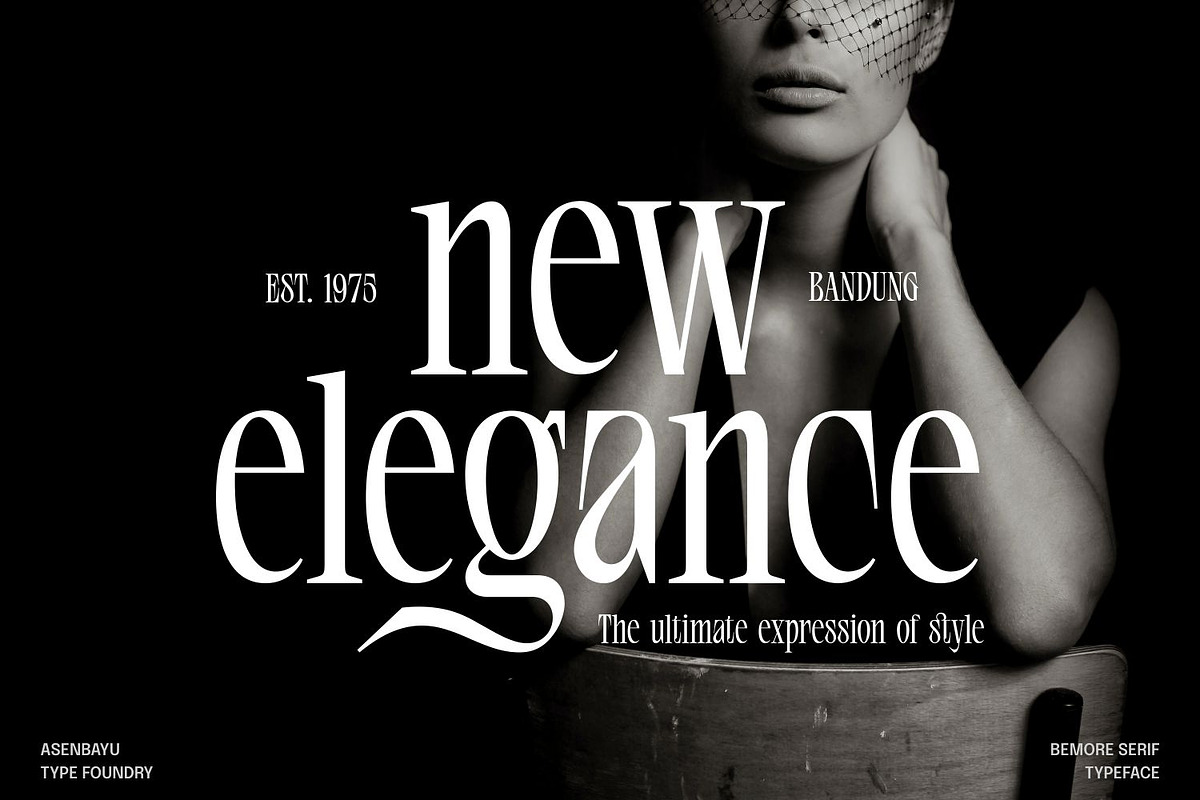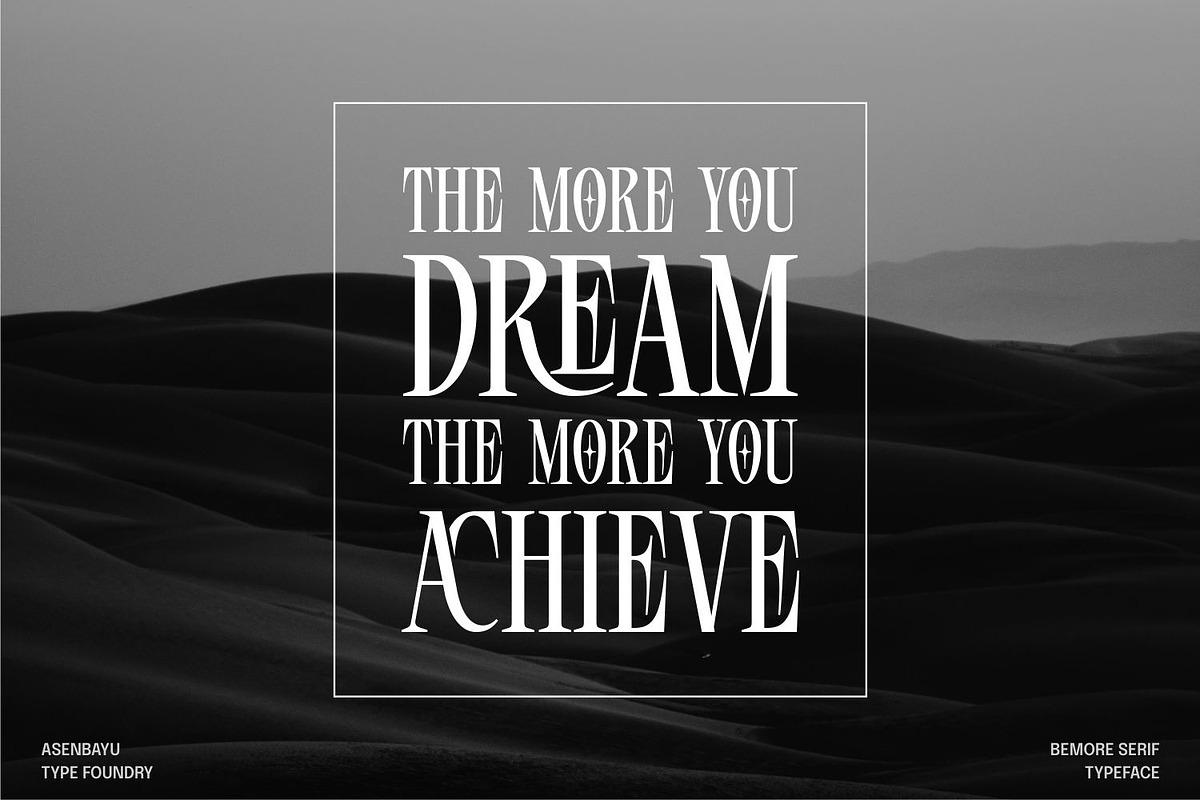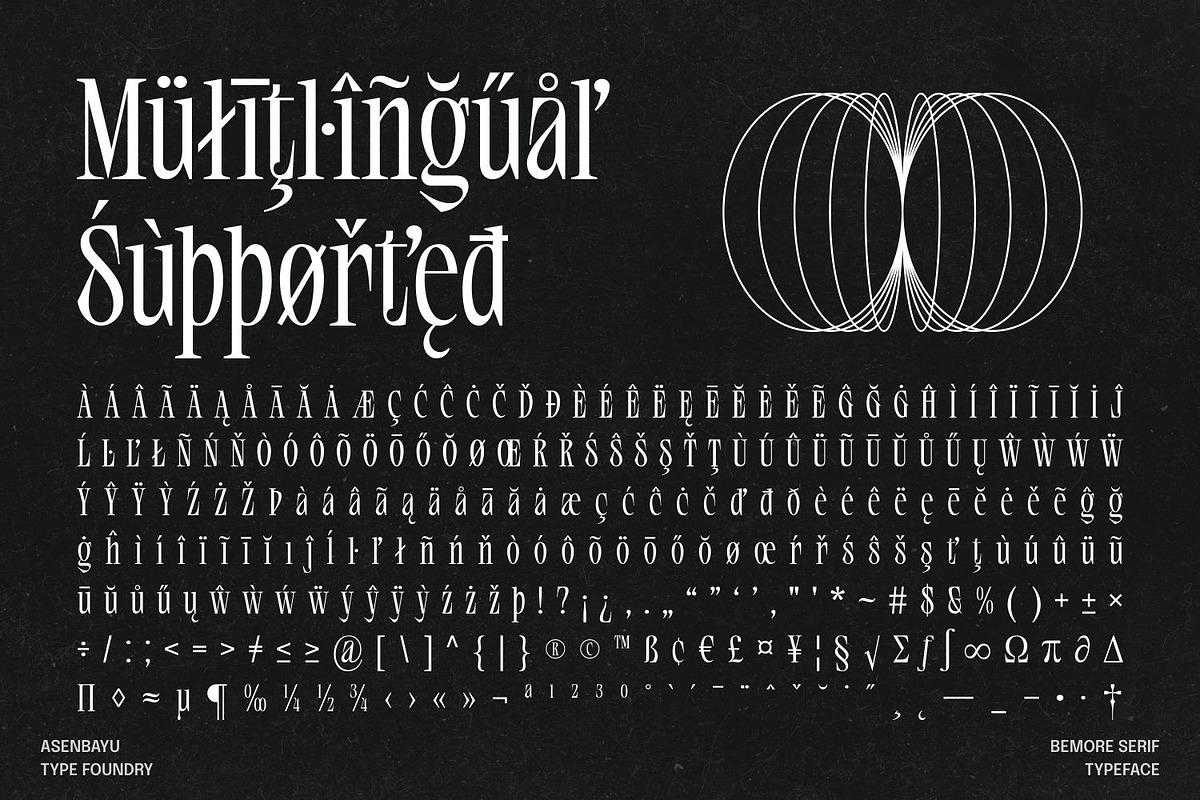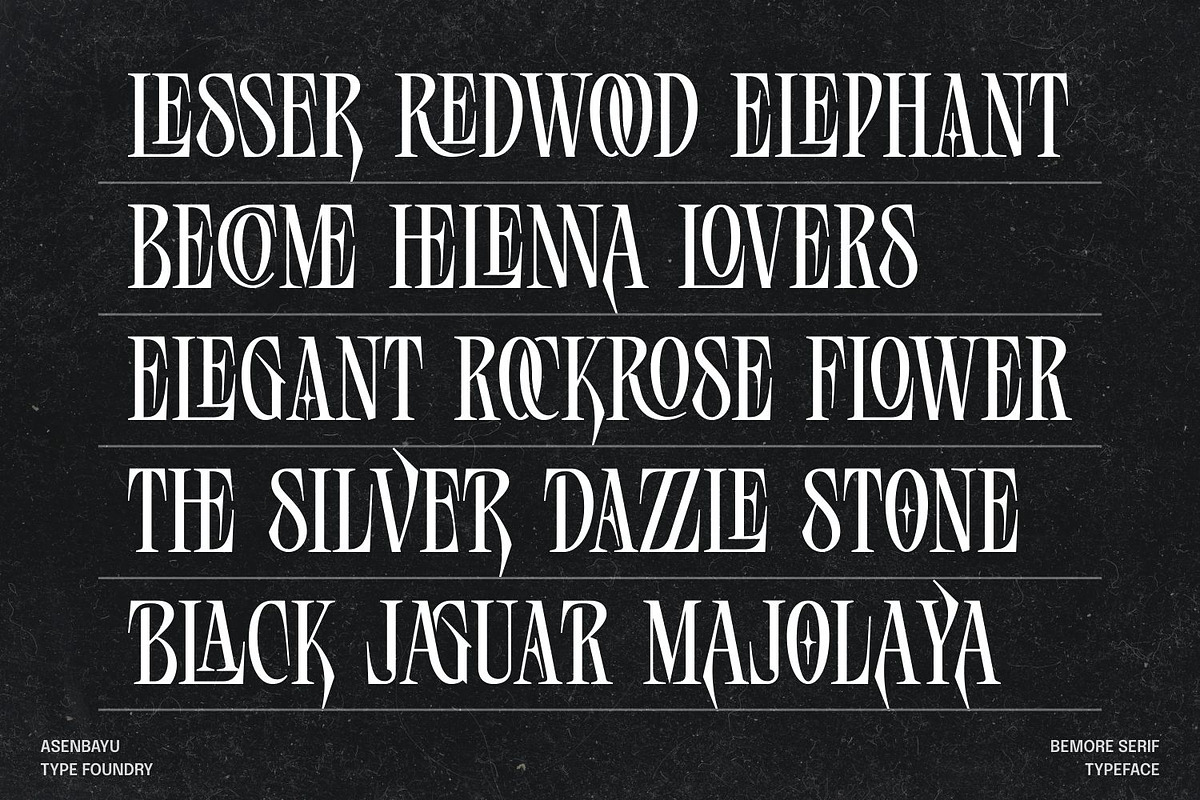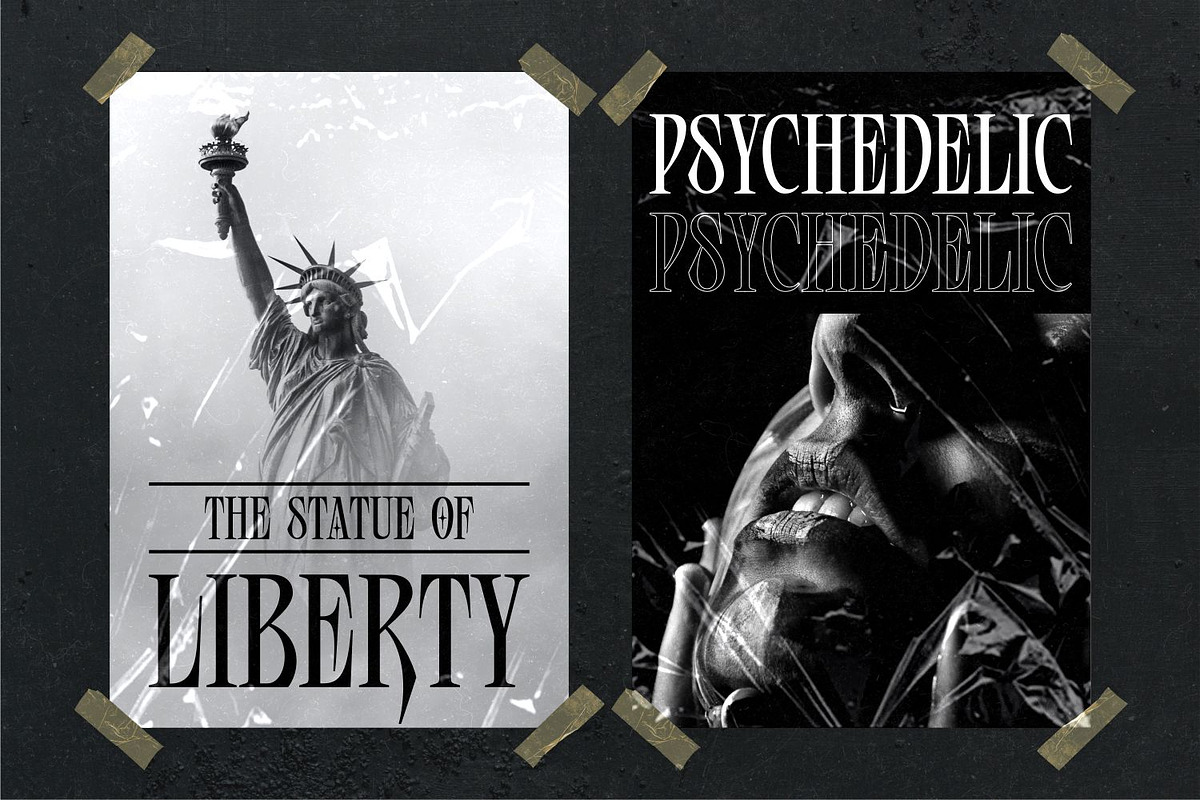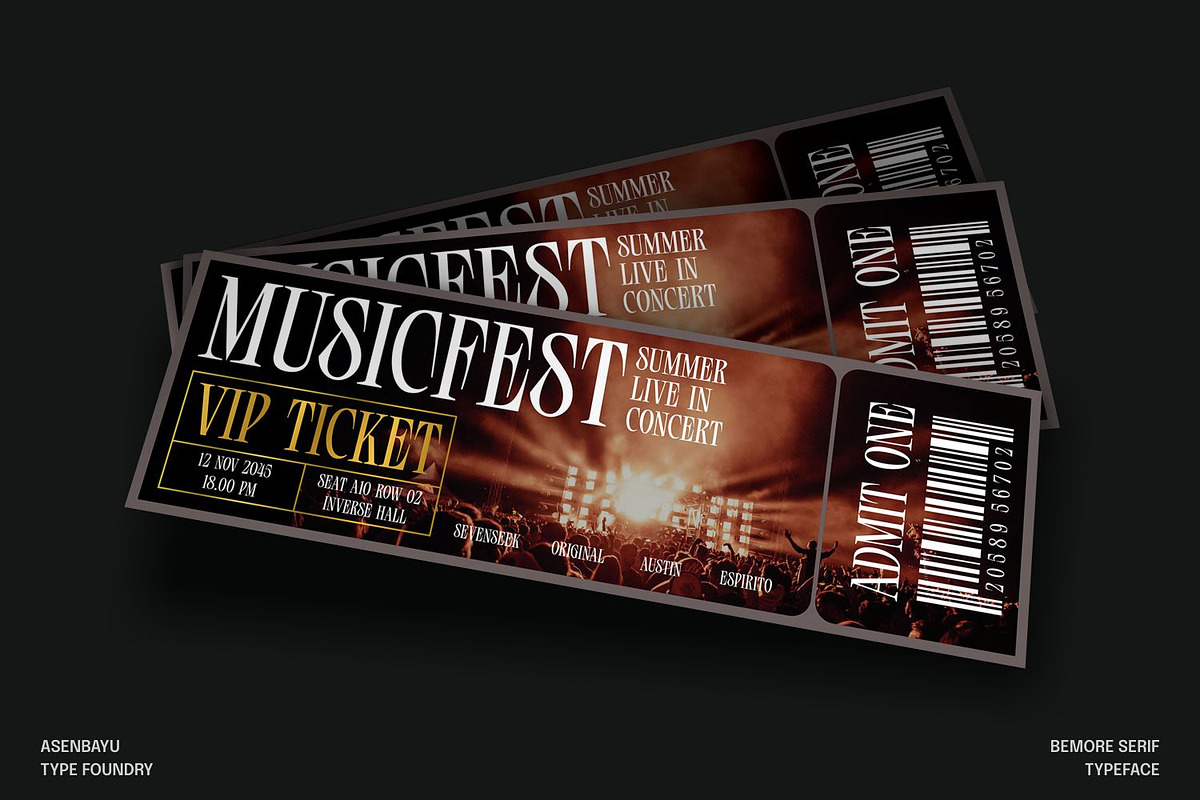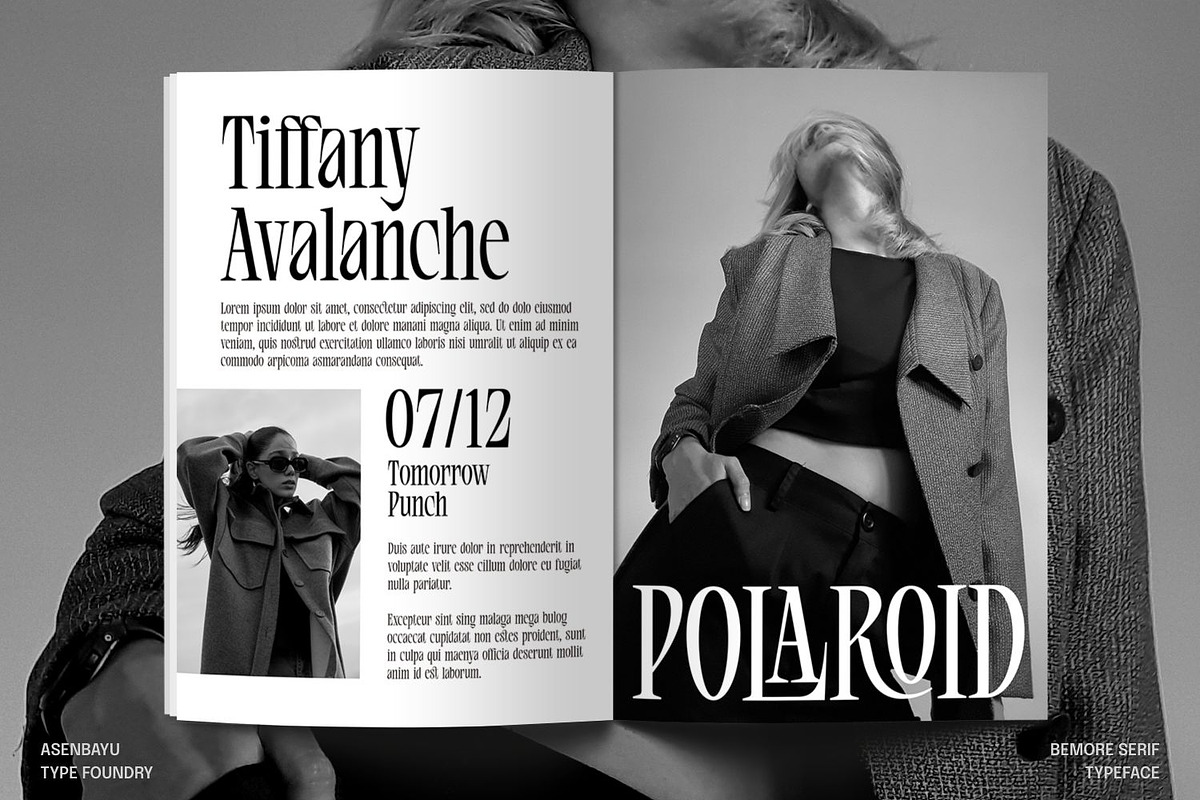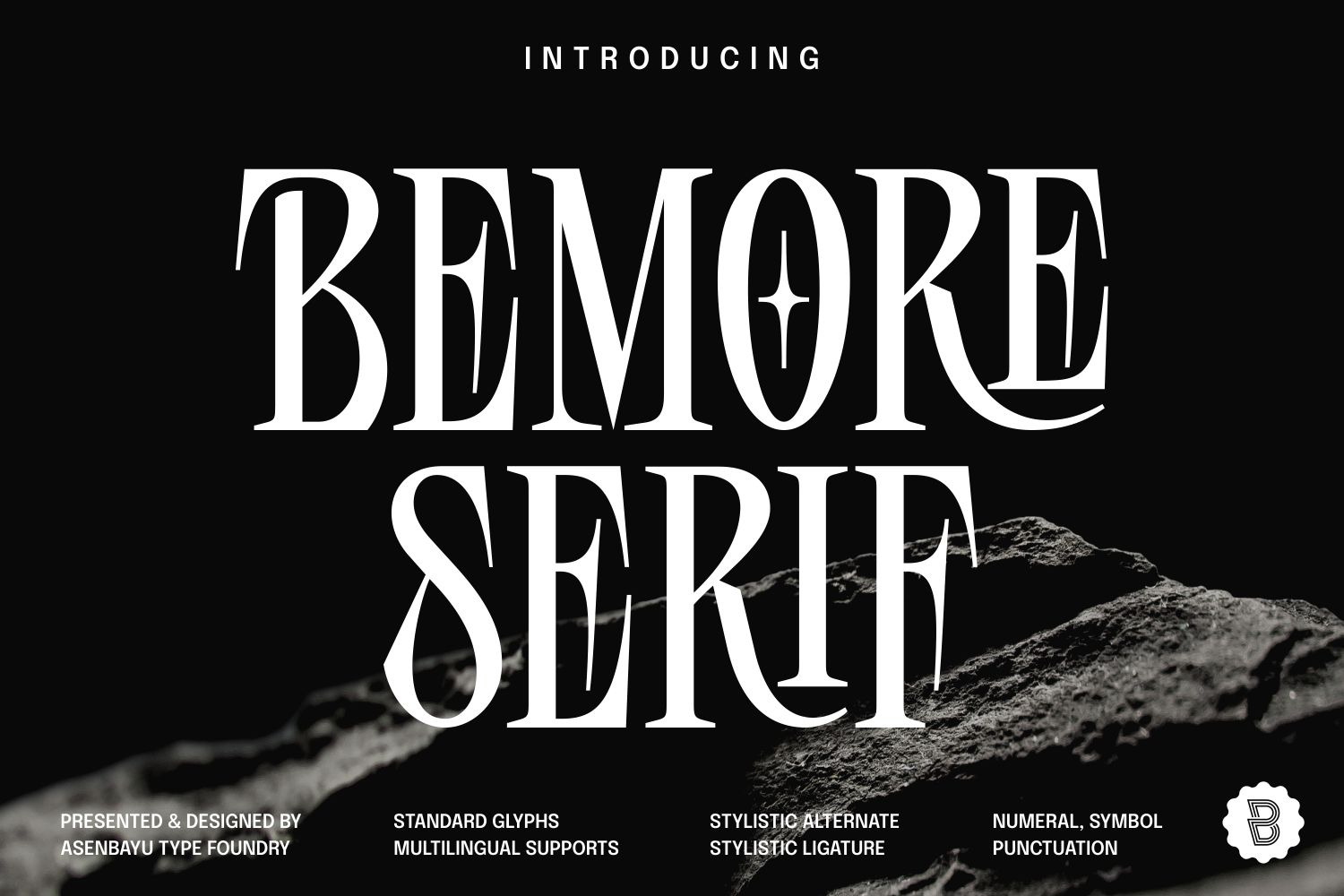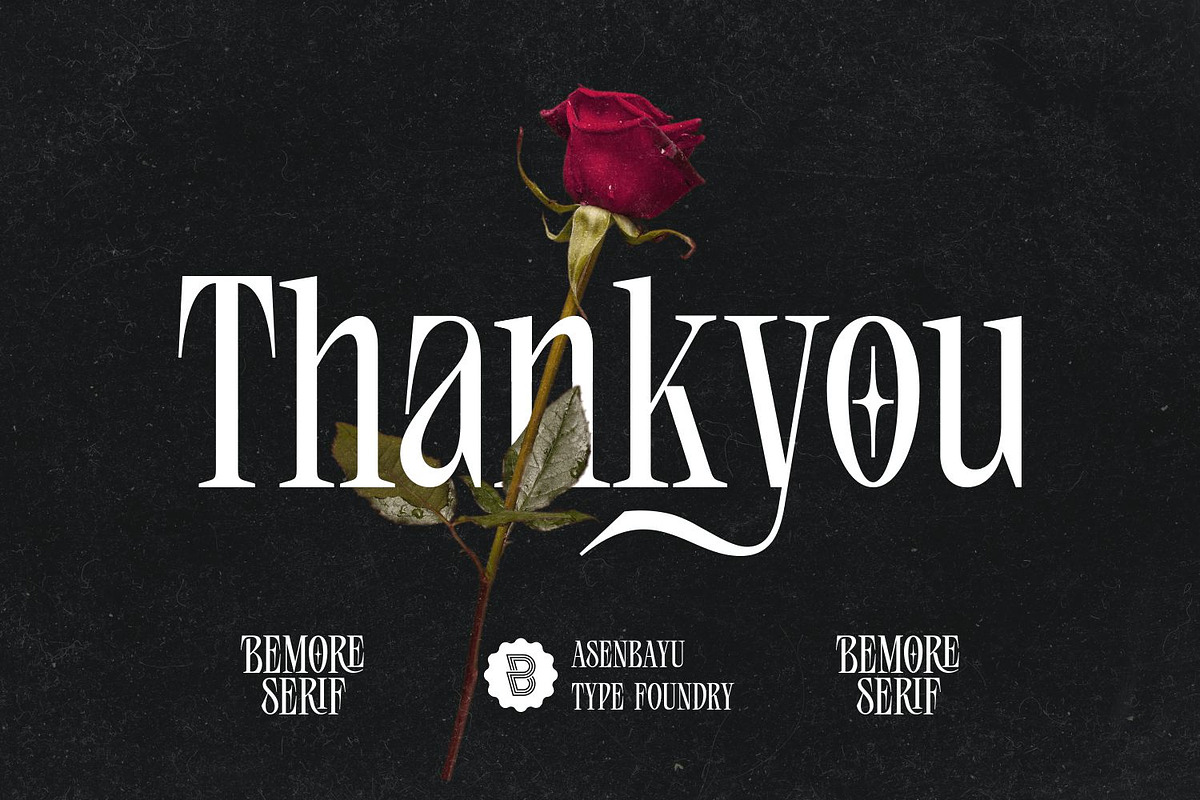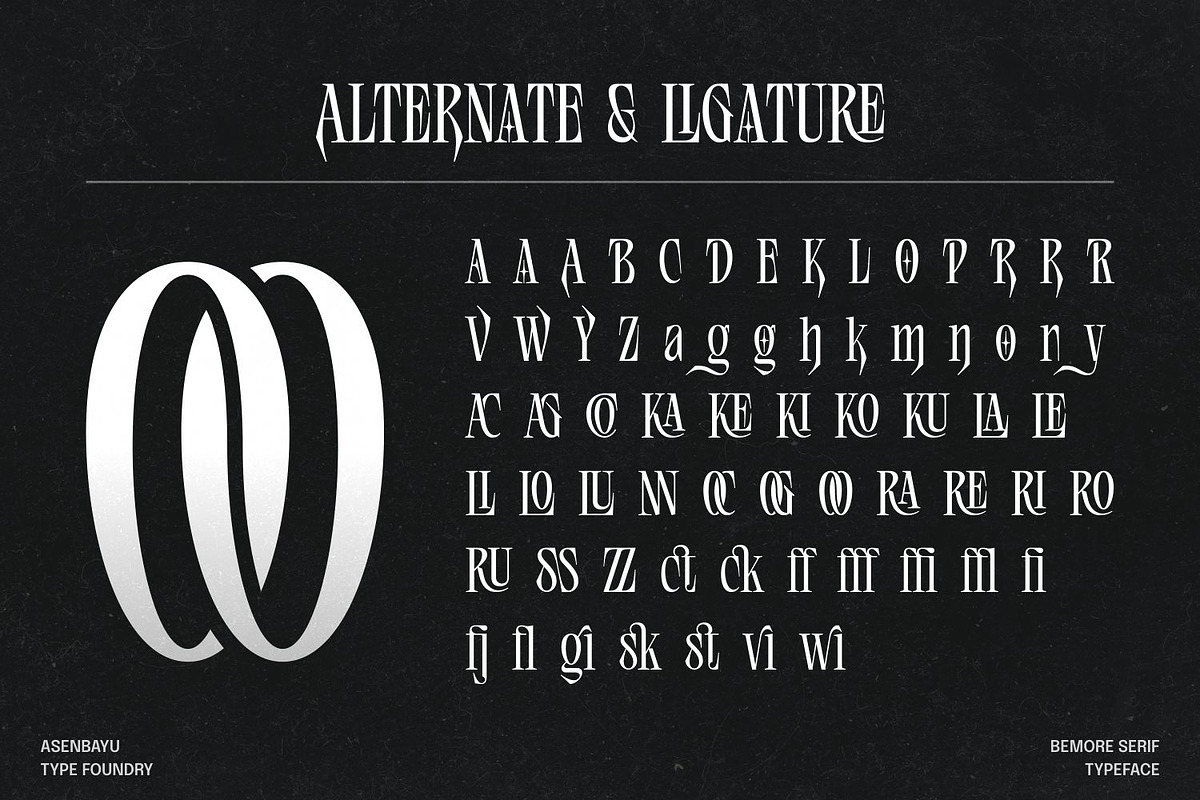
Bemore Serif Font
Bemore Serif is a decorative serif font that has a distinctive serif shape. This font has sleek and tall condensed letter proportions so it can give an attractive and elegant impression. You can use this font in both modern and vintage designs. This font is suitable for attractive packaging label designs, unique desired logos, trendy poster designs, fashion and many more.
Bemore Serif font features: standard glyphs, stylistic alternates, stylistic ligatures, symbol, punctuation and multiple languages supported.